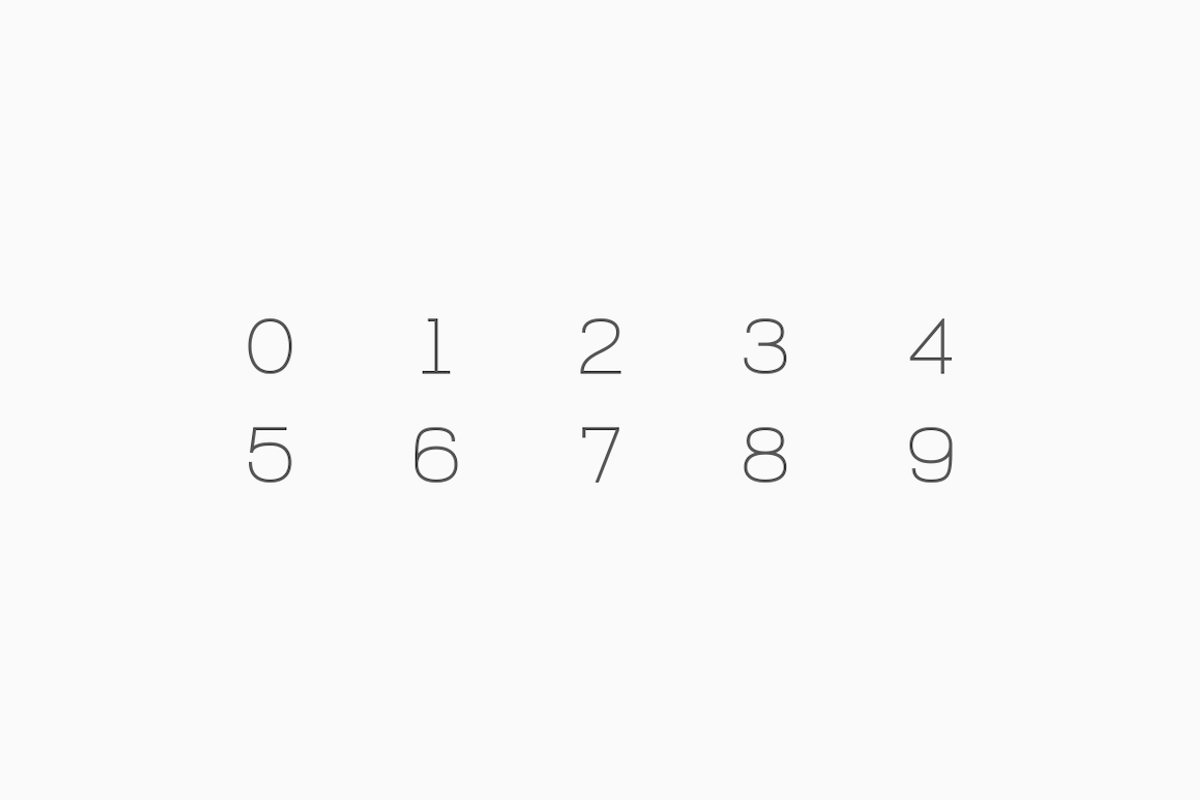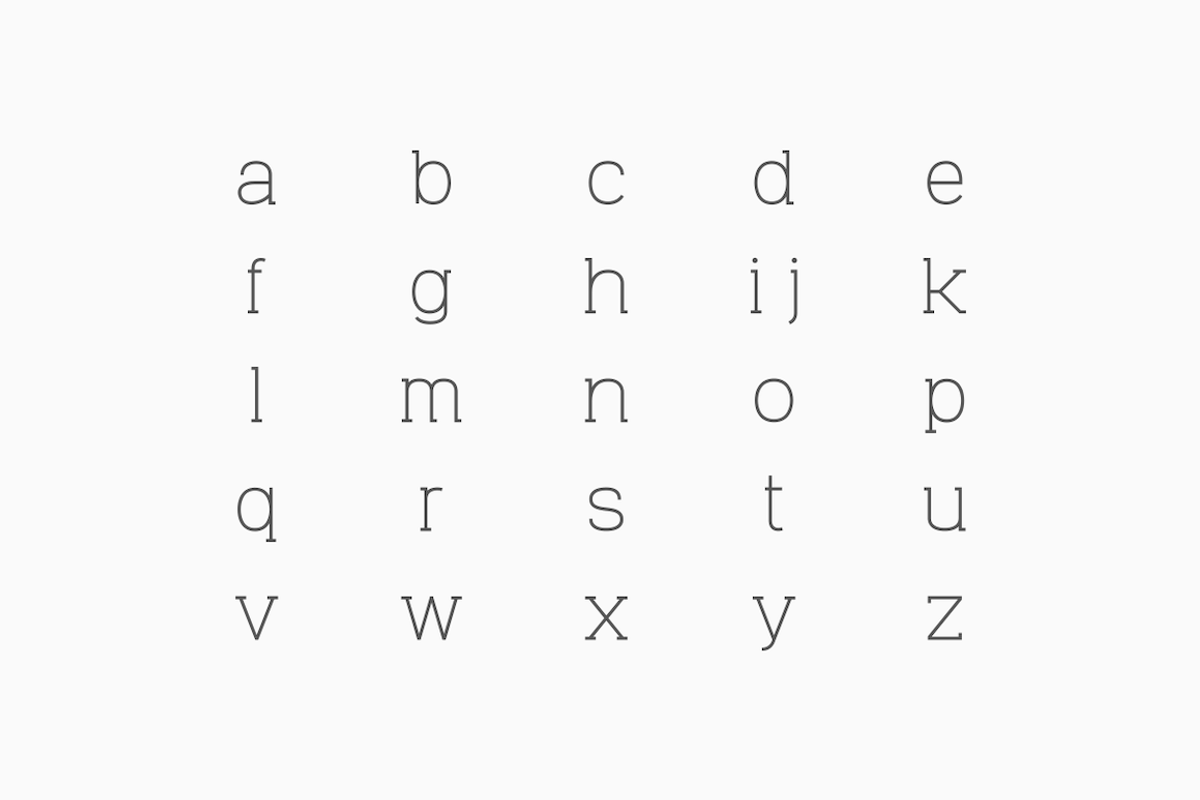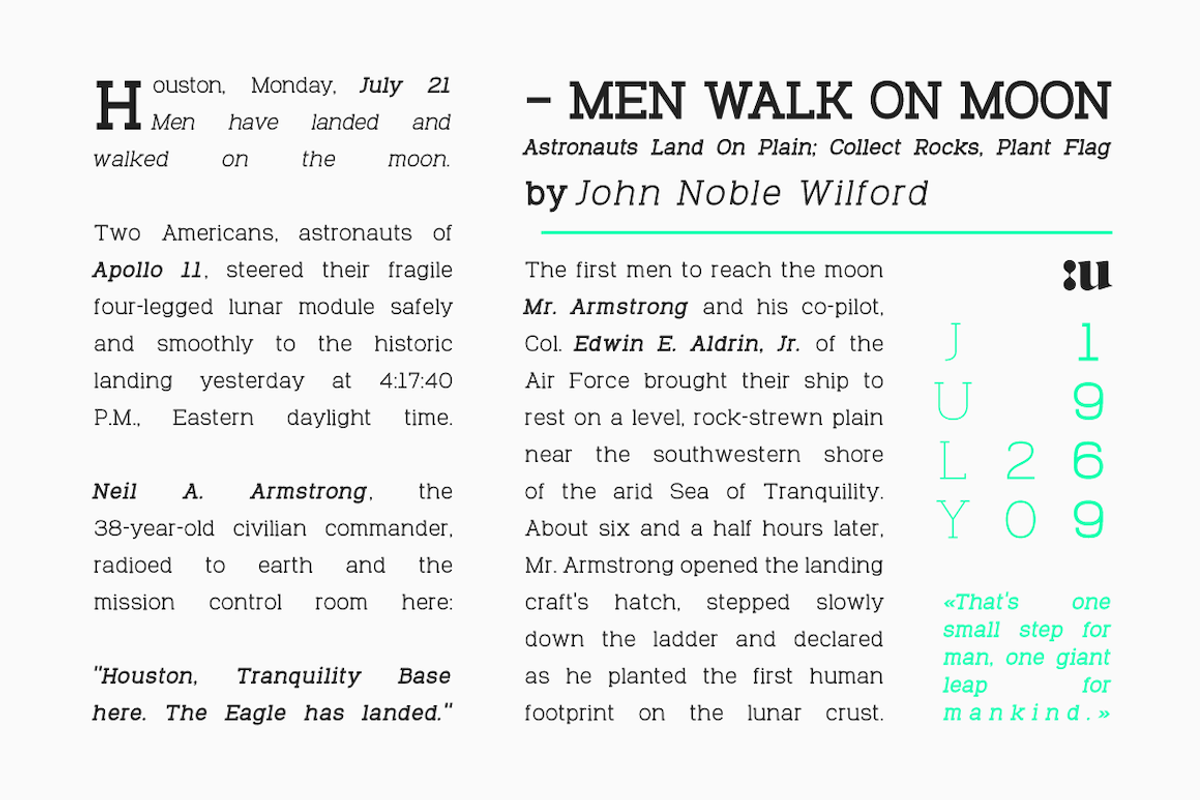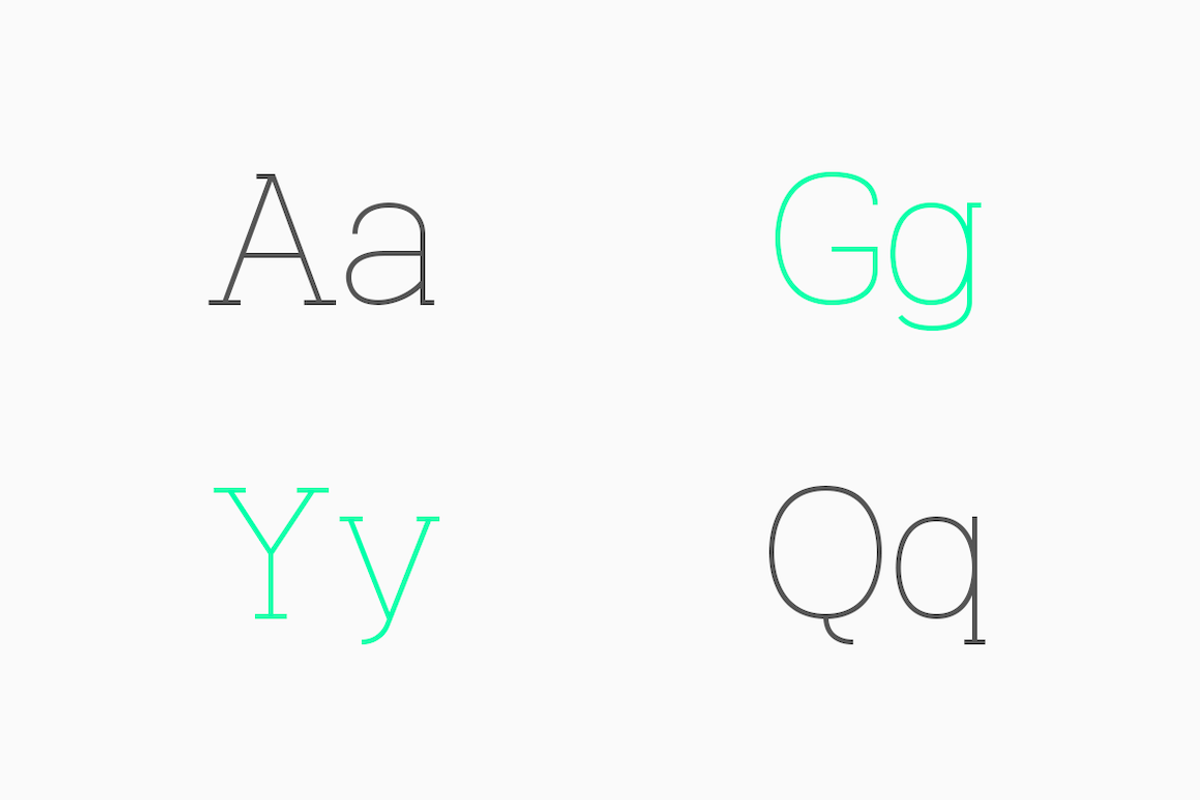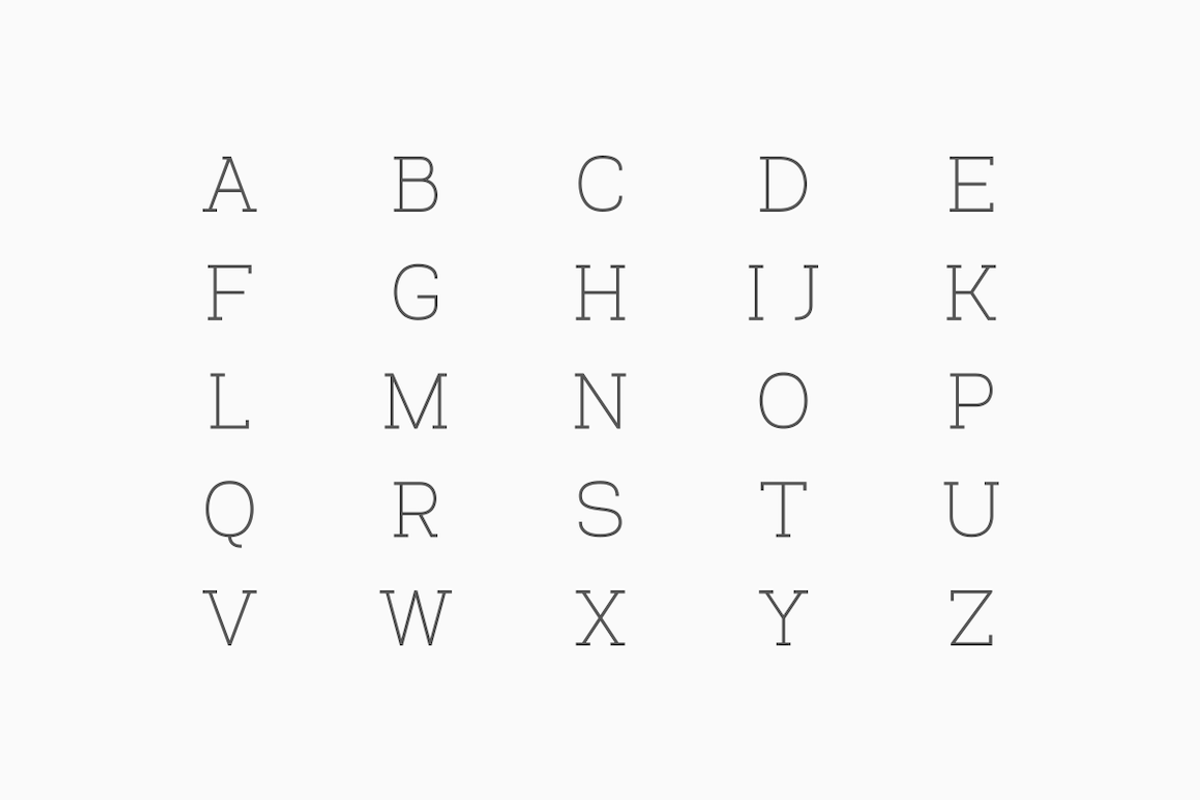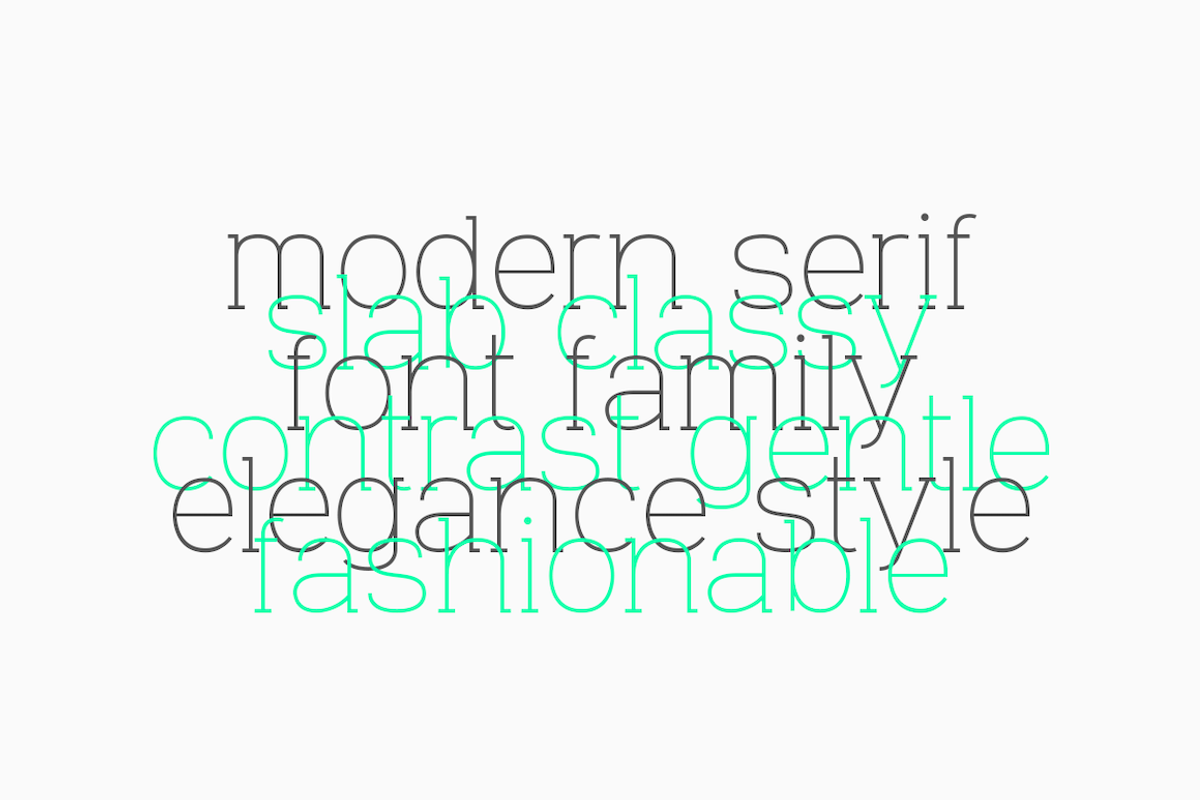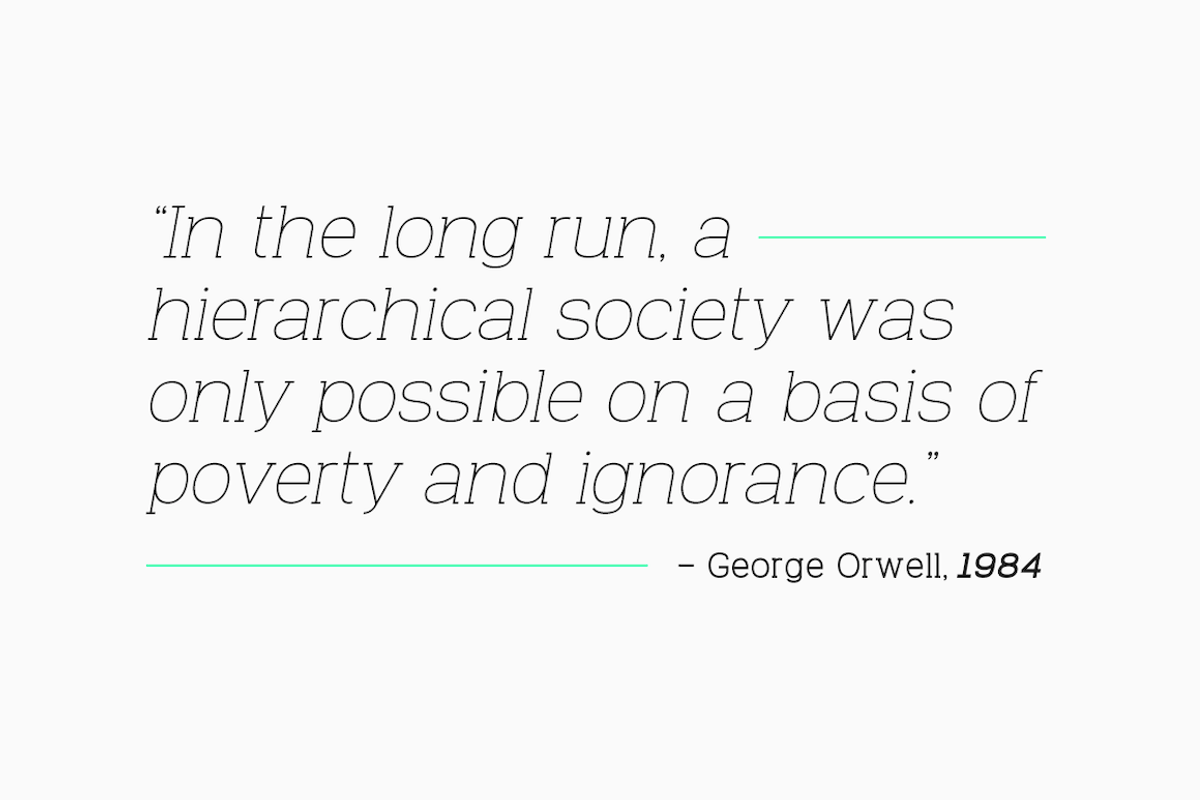
Venice Serif - Font Family
Venice Serif - Font Family by Unio Designs is a font selected for branding, posters, packaging, typography.
- Venice Light, Venice Regular, Venice Bold with corresponding obliques
- Multi-language support (Central, Eastern, Western European languages)
- OpenType features
- The full set of weights (Light, Regular and Bold) has been adjusted and expanded to more than 350 glyphs, the end result is a family with fu
Why Venice Serif - Font Family is worth a look
Venice Serif - Font Family by Unio Designs fits naturally into Branding, posters, packaging, typography.